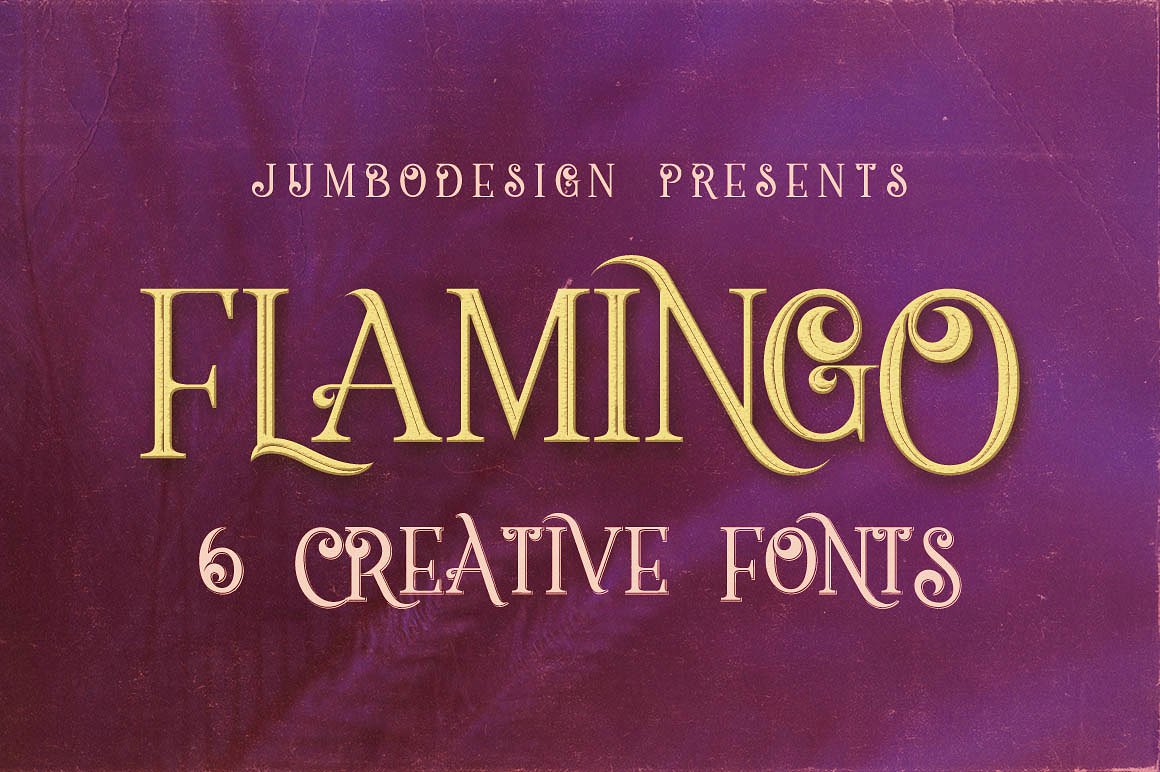
Flamingo Vintage Style Font
Unique vintage or fantasy style custom font with 6 styles: regular and grunge, inline and inline grunge, shadow and shadow grunge.